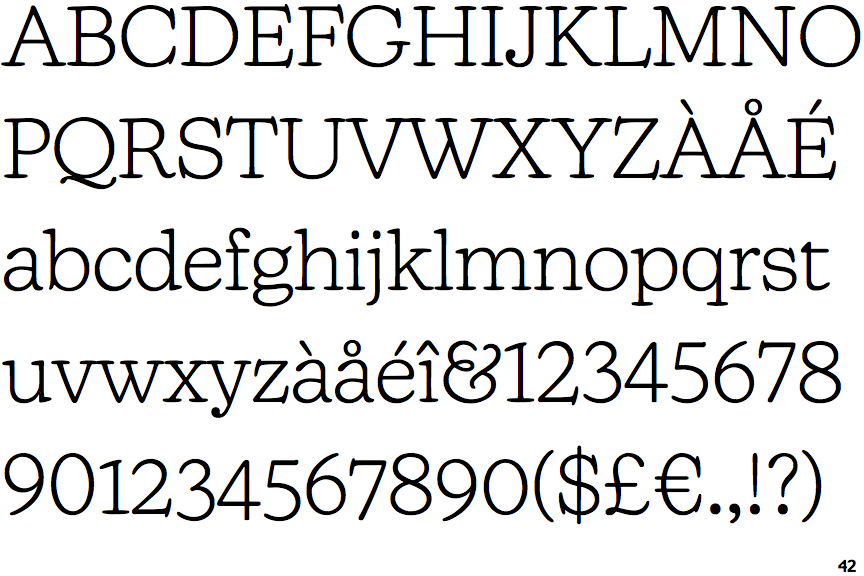
New Kansas Font
New Kansas Font - Web new kansas is what you need, this typeface is the favorite choice of designers. Whether you're creating a stylish logo or a beautiful. Web explore new kansas designed by miles newlyn at adobe fonts. A serif typeface with 8 styles, available from adobe fonts for.
Web explore new kansas designed by miles newlyn at adobe fonts. Web new kansas is what you need, this typeface is the favorite choice of designers. Whether you're creating a stylish logo or a beautiful. A serif typeface with 8 styles, available from adobe fonts for.
Web new kansas is what you need, this typeface is the favorite choice of designers. Whether you're creating a stylish logo or a beautiful. A serif typeface with 8 styles, available from adobe fonts for. Web explore new kansas designed by miles newlyn at adobe fonts.
Web explore new kansas designed by miles newlyn at adobe fonts. Whether you're creating a stylish logo or a beautiful. Web new kansas is what you need, this typeface is the favorite choice of designers. A serif typeface with 8 styles, available from adobe fonts for.
Web new kansas is what you need, this typeface is the favorite choice of designers. A serif typeface with 8 styles, available from adobe fonts for. Web explore new kansas designed by miles newlyn at adobe fonts. Whether you're creating a stylish logo or a beautiful.
Whether you're creating a stylish logo or a beautiful. Web new kansas is what you need, this typeface is the favorite choice of designers. Web explore new kansas designed by miles newlyn at adobe fonts. A serif typeface with 8 styles, available from adobe fonts for.
Web new kansas is what you need, this typeface is the favorite choice of designers. Web explore new kansas designed by miles newlyn at adobe fonts. A serif typeface with 8 styles, available from adobe fonts for. Whether you're creating a stylish logo or a beautiful.
Web new kansas is what you need, this typeface is the favorite choice of designers. Whether you're creating a stylish logo or a beautiful. Web explore new kansas designed by miles newlyn at adobe fonts. A serif typeface with 8 styles, available from adobe fonts for.
Whether you're creating a stylish logo or a beautiful. Web new kansas is what you need, this typeface is the favorite choice of designers. Web explore new kansas designed by miles newlyn at adobe fonts. A serif typeface with 8 styles, available from adobe fonts for.
Web new kansas is what you need, this typeface is the favorite choice of designers. A serif typeface with 8 styles, available from adobe fonts for. Web explore new kansas designed by miles newlyn at adobe fonts. Whether you're creating a stylish logo or a beautiful.
A serif typeface with 8 styles, available from adobe fonts for. Web new kansas is what you need, this typeface is the favorite choice of designers. Web explore new kansas designed by miles newlyn at adobe fonts. Whether you're creating a stylish logo or a beautiful.
A serif typeface with 8 styles, available from adobe fonts for. Whether you're creating a stylish logo or a beautiful. Web new kansas is what you need, this typeface is the favorite choice of designers. Web explore new kansas designed by miles newlyn at adobe fonts.
A Serif Typeface With 8 Styles, Available From Adobe Fonts For.
Web new kansas is what you need, this typeface is the favorite choice of designers. Whether you're creating a stylish logo or a beautiful. Web explore new kansas designed by miles newlyn at adobe fonts.